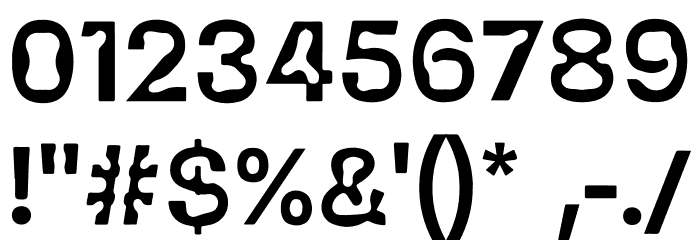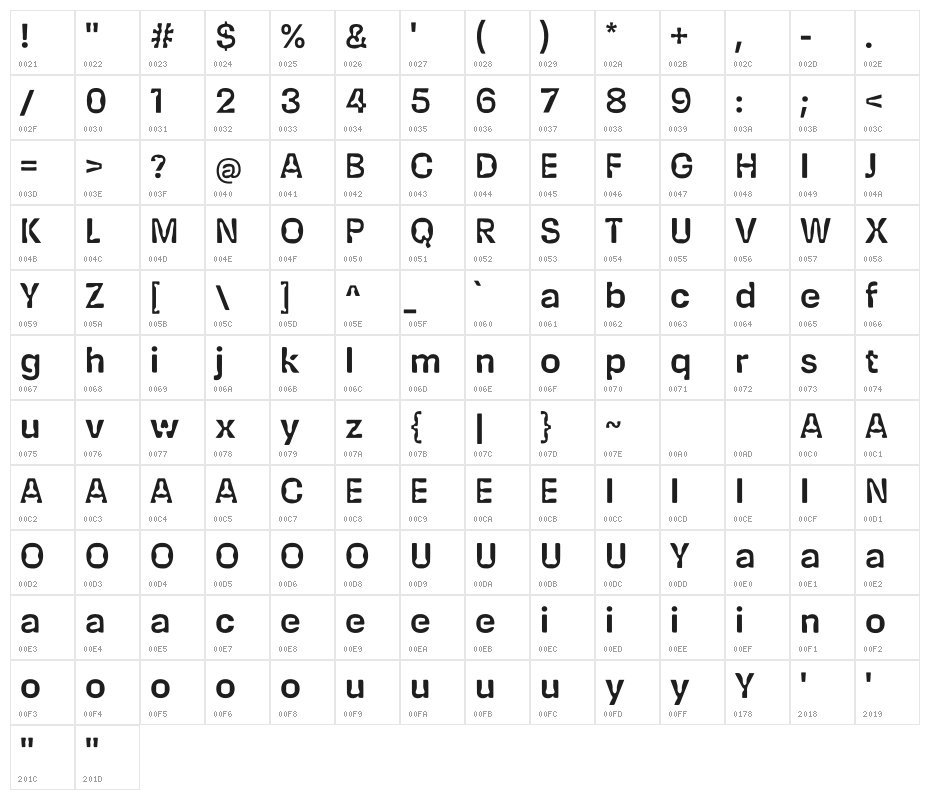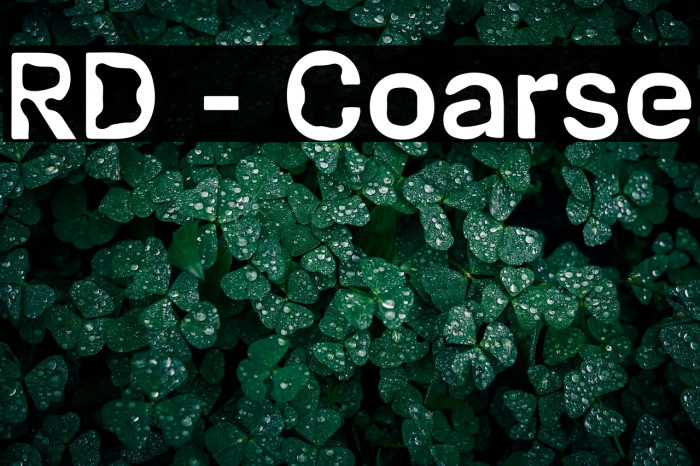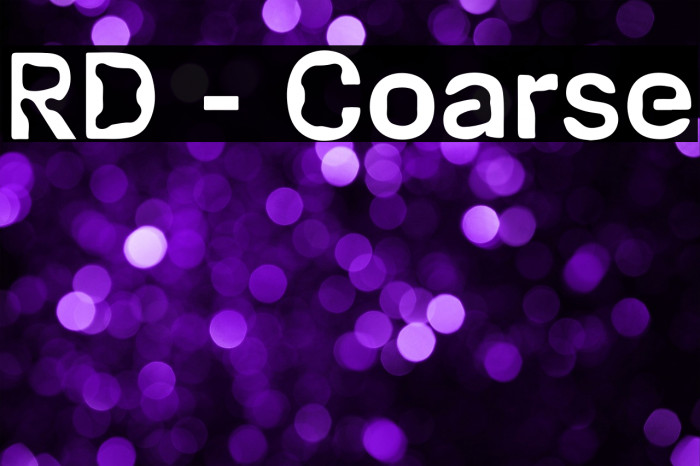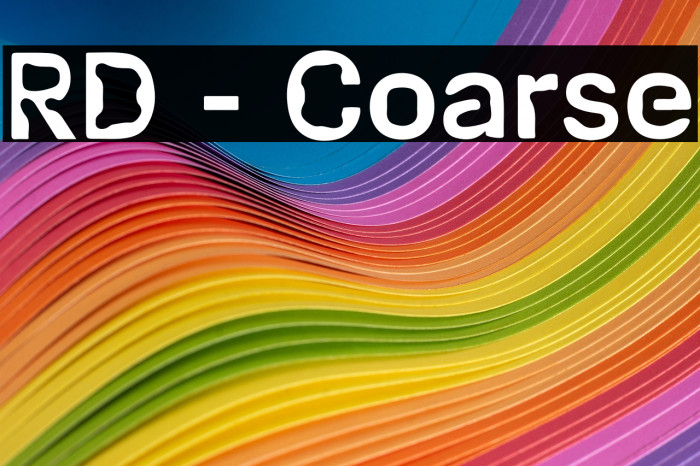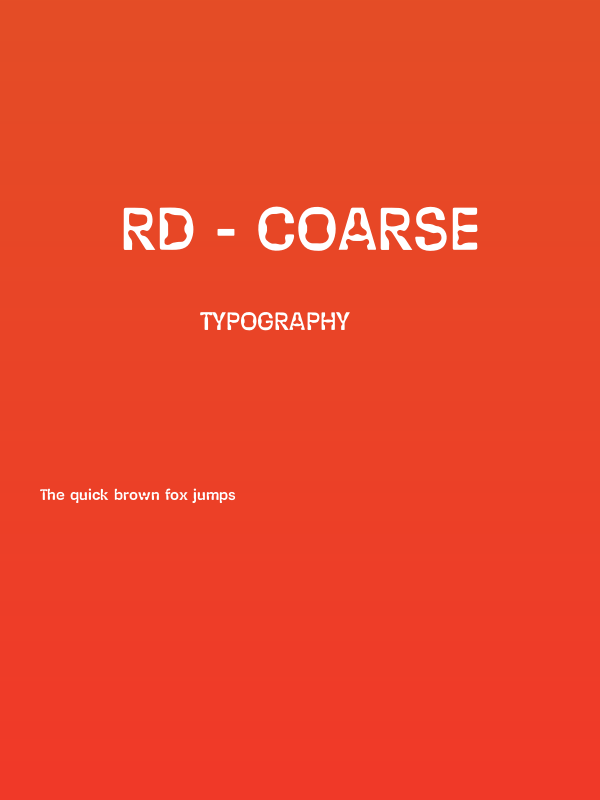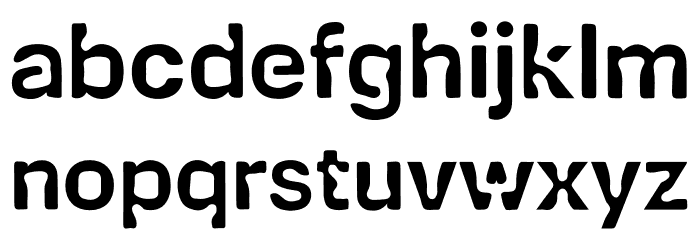
RD - Coarse Font
RD - Coarse Description
This font features a bold and rugged design with a distinctly coarse texture, giving it a unique and eye-catching appearance. The characters are thick and robust, with irregular edges that create a sense of movement and dynamism. The uppercase and lowercase letters maintain a consistent style, while the numerals and special characters complement the overall aesthetic. This font's boldness and distinctive texture make it ideal for projects that require a strong visual impact.
| Proposed Projects | Ideal for posters, branding, headlines, and any design requiring a strong, impactful presence. |